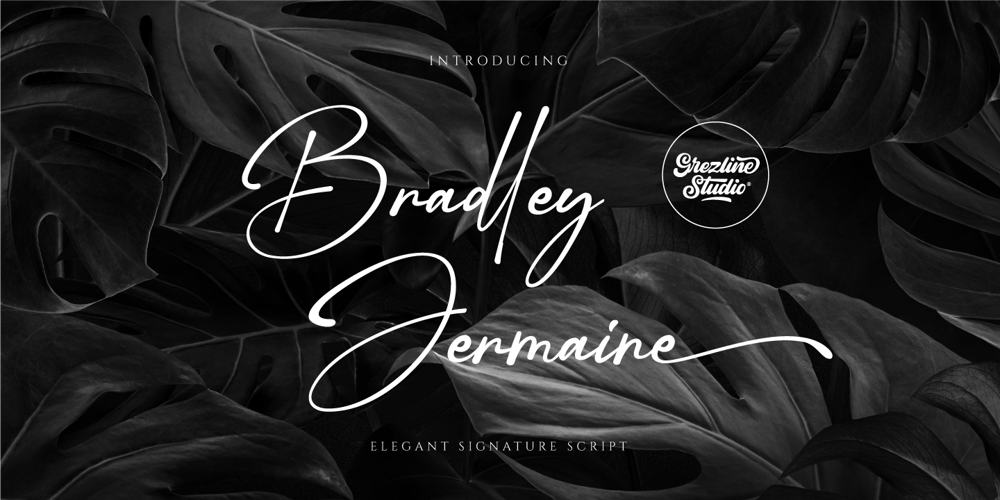
Bradley Jermaine Font Family was designed by Akhmad Reza Fauzi and published by Grezline Studio. Bradley Jermaine contains 1 styles and family package options. Bradley Jermaine is a modern handwritten script font with an elegant touch. This font is perfect use for fashion-related design. Bradley Jermaine font is also usable in a wide range of works such as website banner, greeting cards, wedding stationery, modern logo/personal branding, social media quotes, and much more!Feature :- Alternate and Ligature Set- Multilingual Language- Works on PC & Mac- Simple installations- Accessible in the Adobe Illustrator, Adobe Photoshop, Adobe InDesign, even works on Microsoft Word.Thank you!Grezline Studio – Akhmad Reza Fauzi